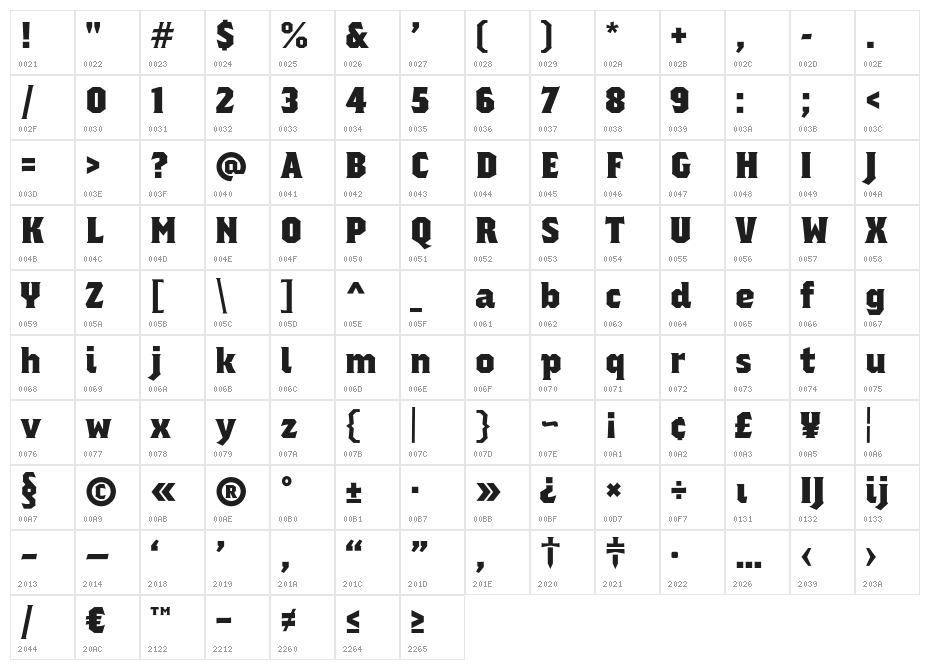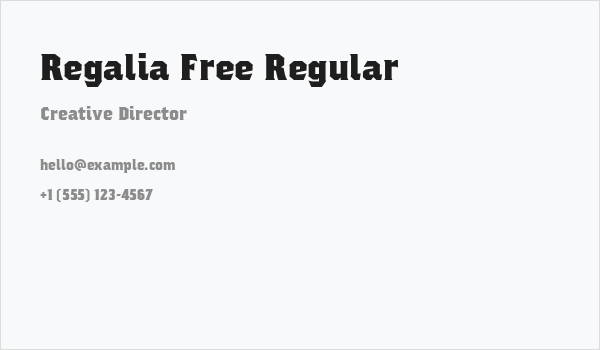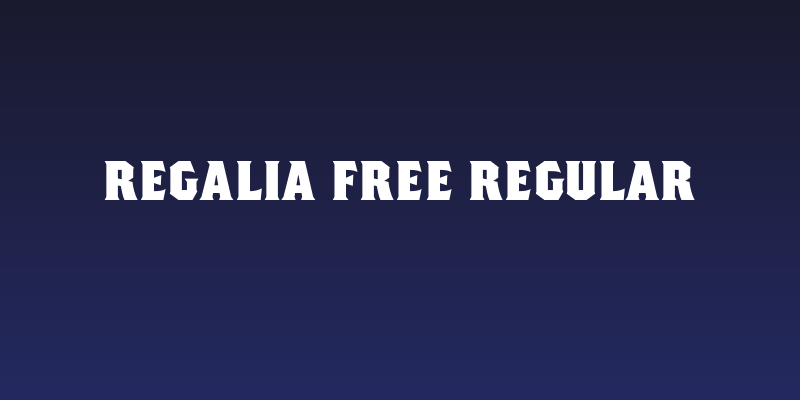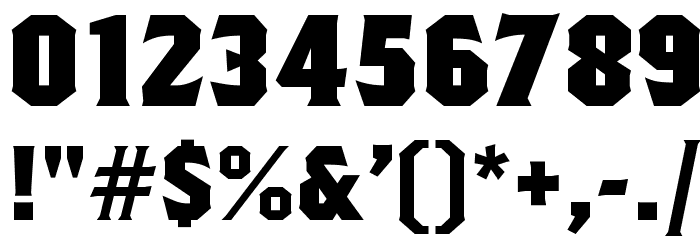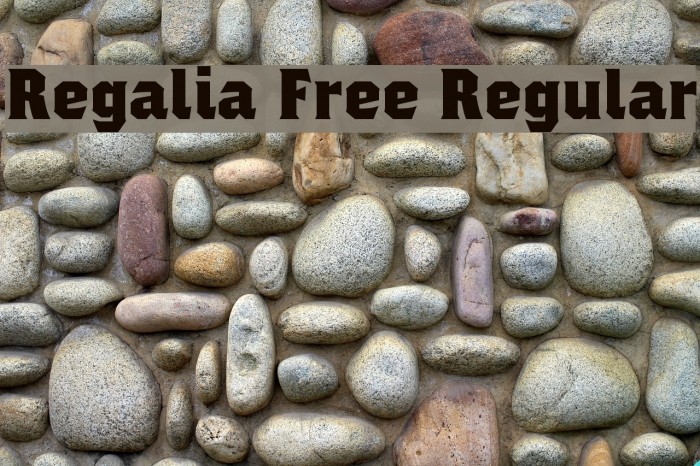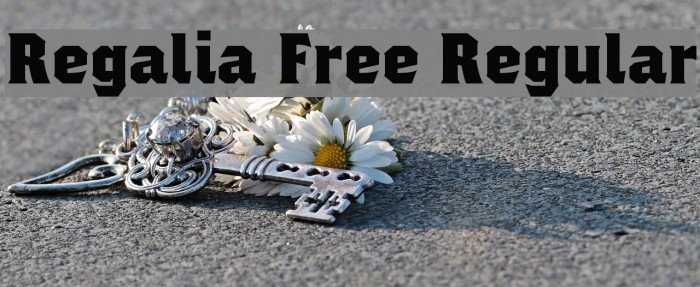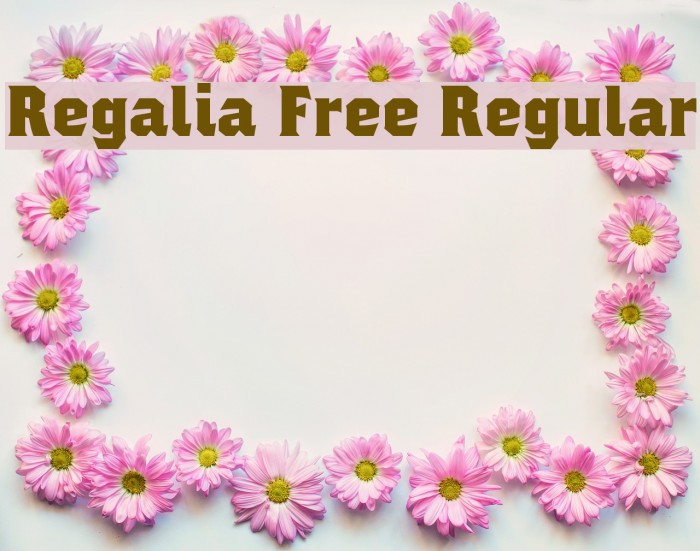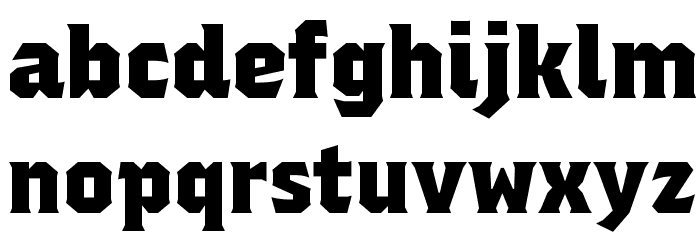
Regalia Free Regular Font
Regalia Free Regular Description
This font features a bold and striking design with a strong presence. The characters are sharply angular with a geometric influence, giving it a modern yet slightly retro feel. The uppercase letters are particularly bold, with a uniform height and width that creates a cohesive look. The lowercase letters maintain the same boldness, ensuring readability while adding a touch of uniqueness with their angular cuts. Numbers and special characters follow the same design principles, making them stand out. This font is ideal for projects that require a strong visual impact.
| Proposed Projects | Perfect for logos, headlines, posters, and branding materials that need a strong, impactful presence. |